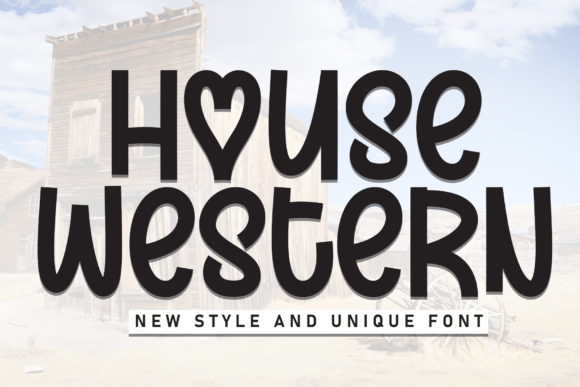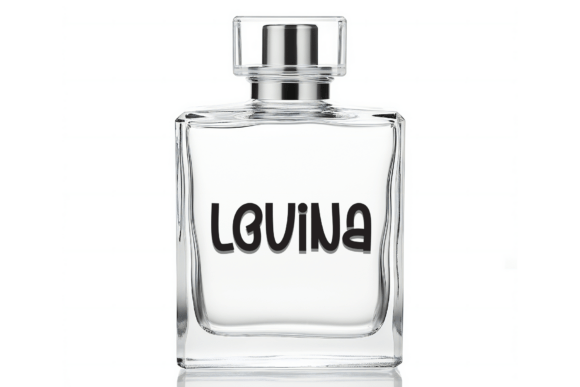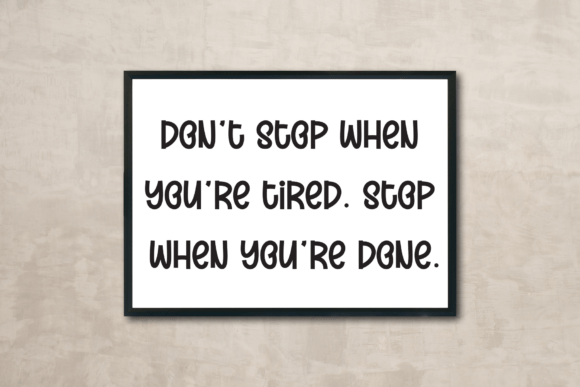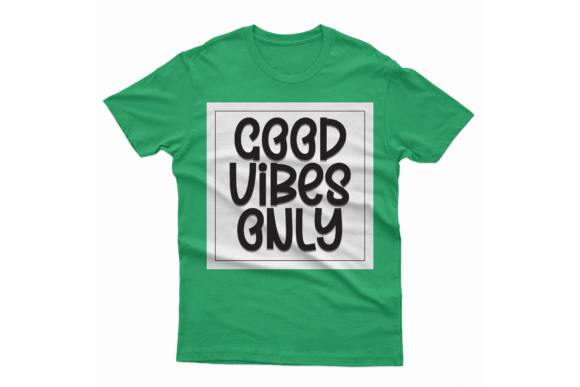
House Western Font
About the House Western Font
The House Western Font is here to transform your projects with its distinctive character and style. Make a statement with this font, a confident and stylish typeface that blends hand-lettered charm with eye-catching thickness. Perfect for logos, headlines, t-shirts, social media posts, and packaging, this font commands attention while keeping a fun, friendly vibe. Its dynamic strokes and smooth curves give every design a bold personality and a modern handwritten feel.
House Western excels in applications requiring a strong visual presence, such as logos, headlines, and short-form text on packaging or posters. Its bold personality makes it ideal for brands projecting confidence and approachability. Avoid using it for body text or lengthy paragraphs; its weight and stylistic details would hinder readability.
For optimal visual harmony, pair House Western with a clean sans-serif like Montserrat for a modern contrast, or a classic serif such as Garamond for a more traditional feel. A playful script font could also work well for secondary elements, depending on the desired effect.
The font’s overall personality is bold, friendly, and modern, lending itself to projects in the lifestyle, food & beverage, and apparel industries. Consider it for brands seeking a strong, approachable aesthetic with a touch of handcrafted charm.
House Western Font Usage Examples
House Western Font Example